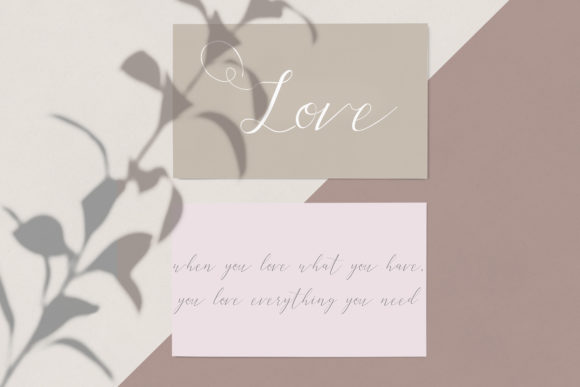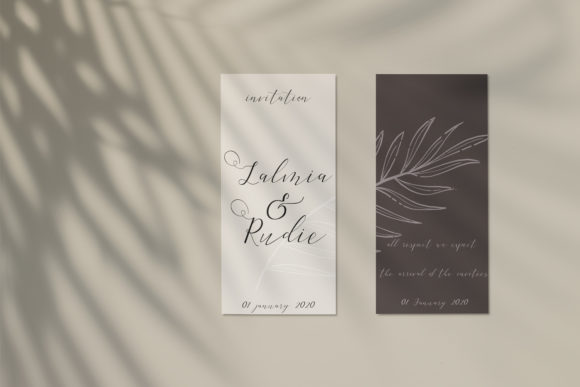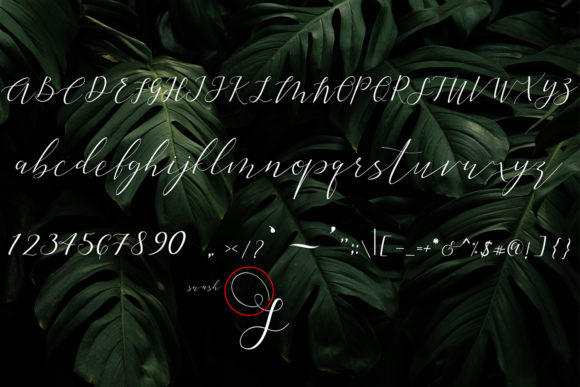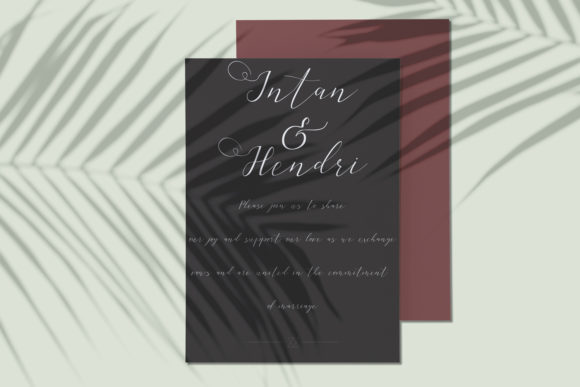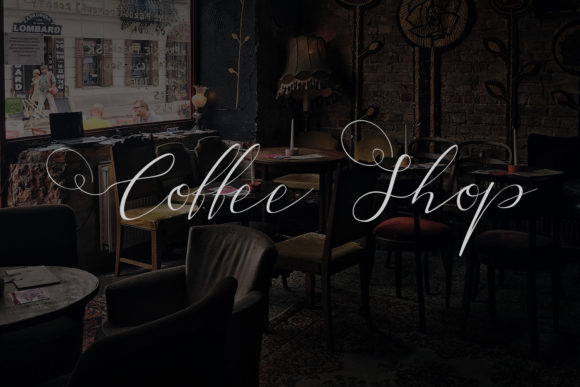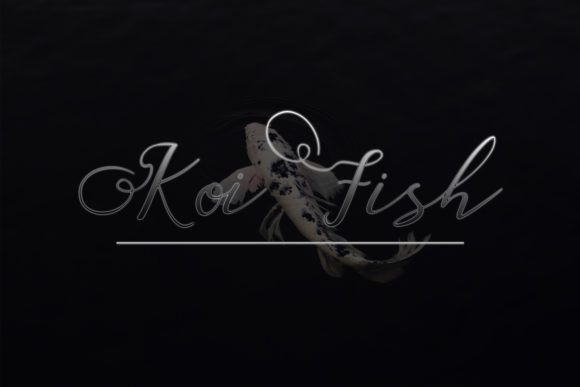
Unleashing the Elegance of Golden Sea Font
Have you ever sat in front of your computer, staring blankly at a blank canvas, trying to come up with the perfect design concept? The cursor blinks, and your mind goes blank. It’s moments like these that I wish I had a magic font to spark my creativity. Well, I’m excited to share with you a font that might just be the answer to all your design prayers: Golden Sea Font.
Golden Sea Font is a stunning script font that boasts a beautiful calligraphic style, perfect for adding a touch of elegance to your designs. Whether you’re a graphic designer, a typographer, or simply someone who loves beautiful typography, Golden Sea Font is a valuable addition to your design toolkit. Its versatility makes it suitable for a wide range of projects, from wedding invitations to branding materials.
Golden Sea Font Key Features
- Unique Characteristics: Features a unique blend of modern and classic elements, with intricate details and elegant lines, making it suitable for luxury and high-end branding.
Designer Review: Golden Sea Font
First impressions of the Golden Sea Font are generally good. I like how ✨ elegant and luxurious it looks, especially when used for titles and headings. The font’s unique flair and subtle texture give it a distinctive feel that can add a touch of sophistication to various designs. Additionally, the font’s ✨ versatility makes it suitable for a wide range of applications, from fashion and beauty to luxury travel and fine dining.
While Golden Sea Font has its strengths, there are some limitations to consider. One of the main concerns is the font’s ⚠️ readability at smaller font sizes. The delicate lines and subtle texture can make it difficult to read in certain contexts, particularly on digital devices. Furthermore, the font’s ⚠️ limited character set may not be ideal for languages that require a wide range of special characters.
Overall, Golden Sea Font is a solid choice for designers looking to add a touch of luxury and elegance to their projects. While it may not be suitable for all applications, it can be a great option for specific contexts where its unique flair is desired. With some careful planning and consideration of its limitations, Golden Sea Font can be a valuable addition to any designer’s toolkit.
Key Takeaways
- Elegant and luxurious design
- Unique flair and subtle texture
- Readability issues at smaller font sizes
- Limited character set
- Versatile and suitable for a range of applications
Practical Application Guide for Golden Sea Font
The Golden Sea Font is ideal for creating a luxurious and elegant look for your designs. Use it for:
- High-end branding and packaging
- Magazine and newspaper headlines
- Special occasion cards and gift tags
Alternatives to Golden Sea Font
Great Vibes Font is a modern, elegant script font that is perfect for creating a sophisticated and luxurious feel. It features flowing connections between letters, making it ideal for headings, titles, and quotes. When to use: fashion, luxury, and high-end branding.
Comparison to Golden Sea Font: While both fonts have a luxurious feel, Great Vibes Font is more elegant and refined, making it a better choice for high-end branding and fashion applications.
Dancing Script Font is a lively and playful script font that is perfect for creating a fun and energetic feel. It features a more casual and approachable design, making it ideal for social media, advertising, and entertainment applications. When to use: social media, advertising, and entertainment branding.